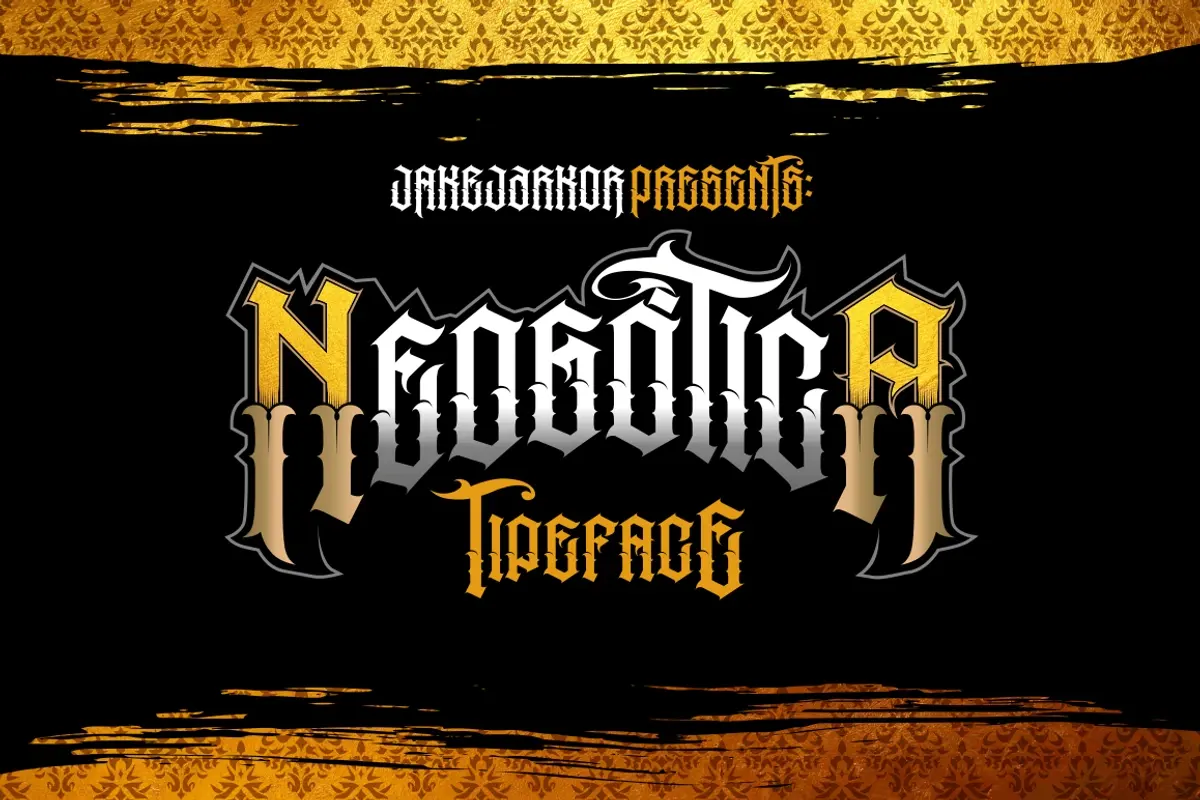
NEOGÓTICA Font Free Download is a striking and bold typeface that blends traditional Gothic influences with a modern twist. With its sharp edges, intricate detailing, and unique letterforms, this font is perfect for creating dramatic headlines, logos, posters, branding, and any design that needs a powerful and artistic touch.
Whether you're working on a gothic-inspired brand, designing a captivating event poster, or creating a bold logo, NEOGÓTICA brings strength, character, and elegance to your typography. It’s the perfect font for designers looking to make a unique and memorable impact.